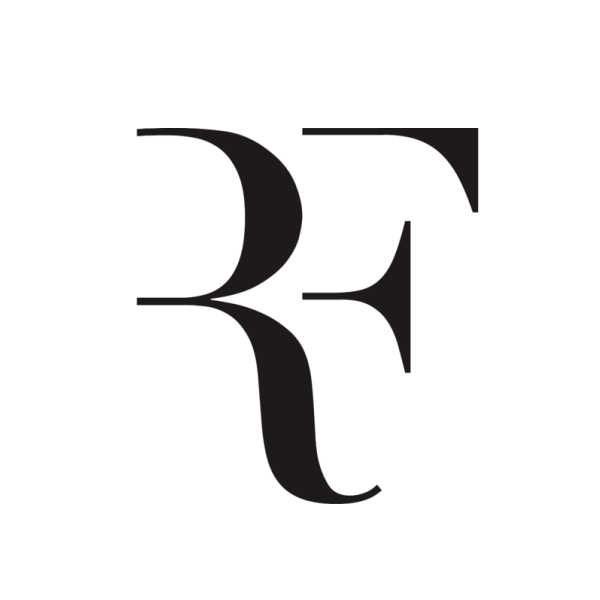
Roger Federer Font
Fonts in UseRoger Federer is a Swiss tennis legend, widely regarded as one of the greatest players of all time, known for his elegant playing style and record-breaking achievements in the sport.
Roger Federer's logo showcases the stylish RF monogram, which draws inspiration from the elegant Monotype Bodoni typeface, a renowned didone modern font created by Giabattista Bodoni. Additional information about the logo can be found here.